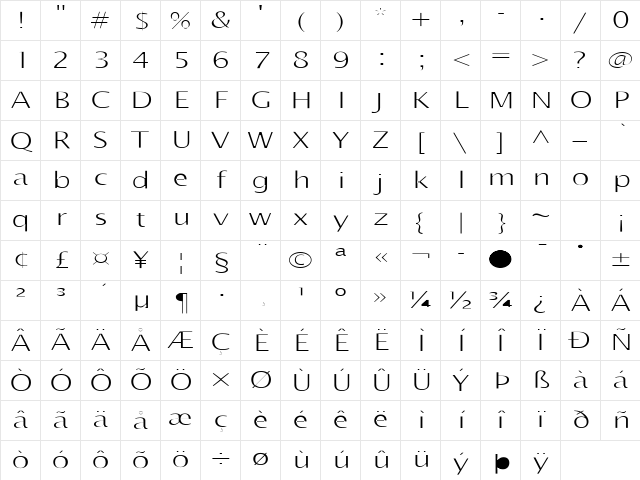
Intention Regular
Complete Intention Regular glyph index. Displaying only characters natively supported by Intention Regular font.
Design Context for Intention
Intention is a composed and adaptable typeface that performs quietly and consistently across a wide range of design contexts.
Who designed the Intention Regular font?
This font was published by Copr. (T- ),Chicago, Illinois, Designed by Adam Roe. Check the technical specs section for copyright and designer details.